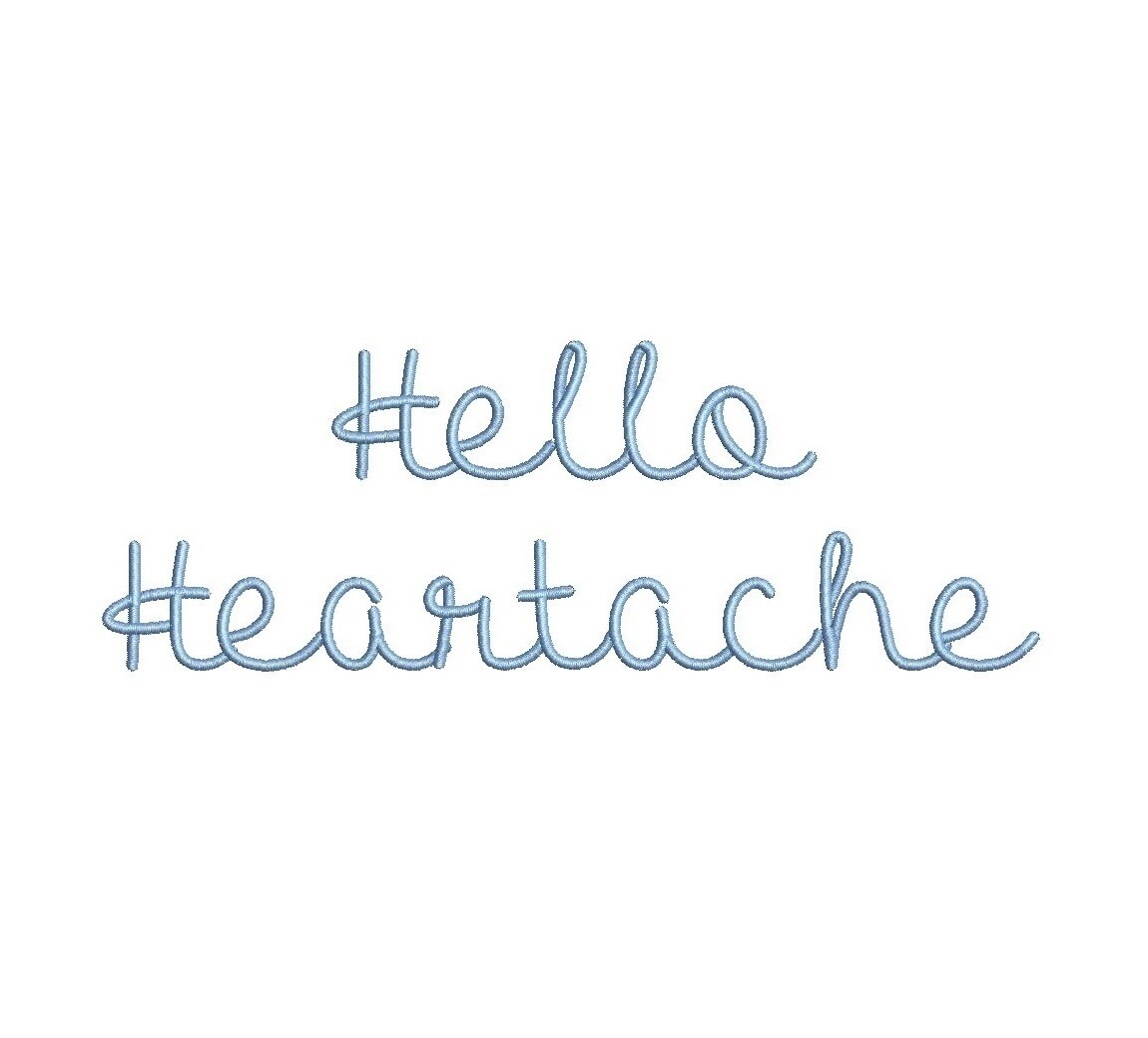
Embrace the emotions with Hello Heartache Regular ESA font. This poignant and expressive typeface delves into the depths of the human heart. Crafted with meticulous attention to detail, this premium font guarantees a seamless and enjoyable design experience. Compatible with Wilcom Studio e4.5.6 and Hatch 3 versions and up, it ensures smooth embroidery creation. Whether it's soulful projects, heartfelt messages, or evocative branding, Hello Heartache Regular ESA font captures the essence of heartache and healing. Embrace its emotive allure and create designs that resonate with raw emotions. Don't miss out; connect deeply with your audience through this touching gem.